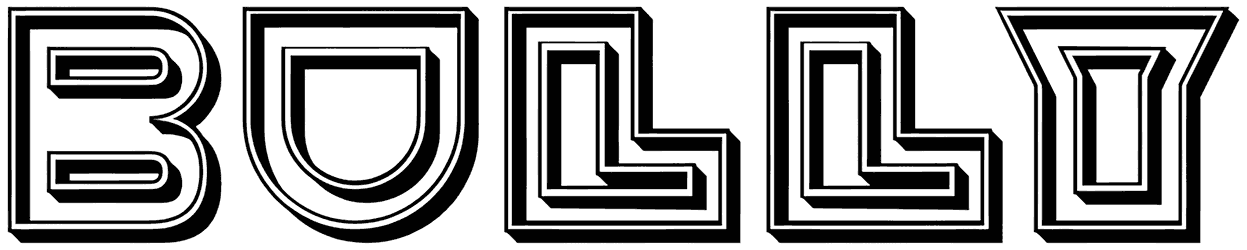
Bully Font
Do you want to easily turn any design into a masterpiece? So, without further ado, press the Bully download button. This 1940s font not only gives a magnificent look to the content but also adds elegance to it and looks very bright in neon designs.
This retro font includes only capital letters. So, if you want to design an impressive poster, a stunning album cover, and an effective advertising banner, put aside your work for a minute and look at Bully.